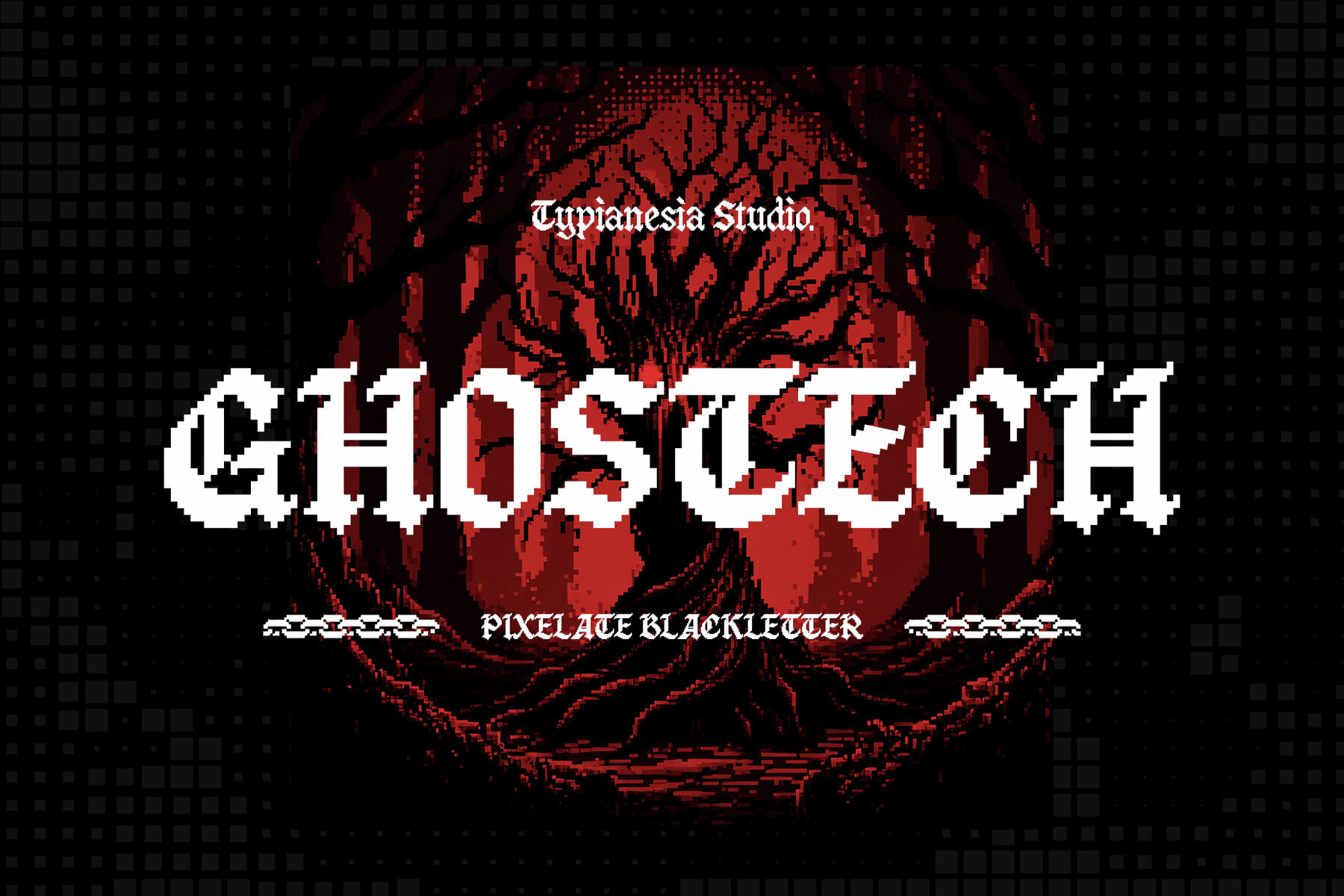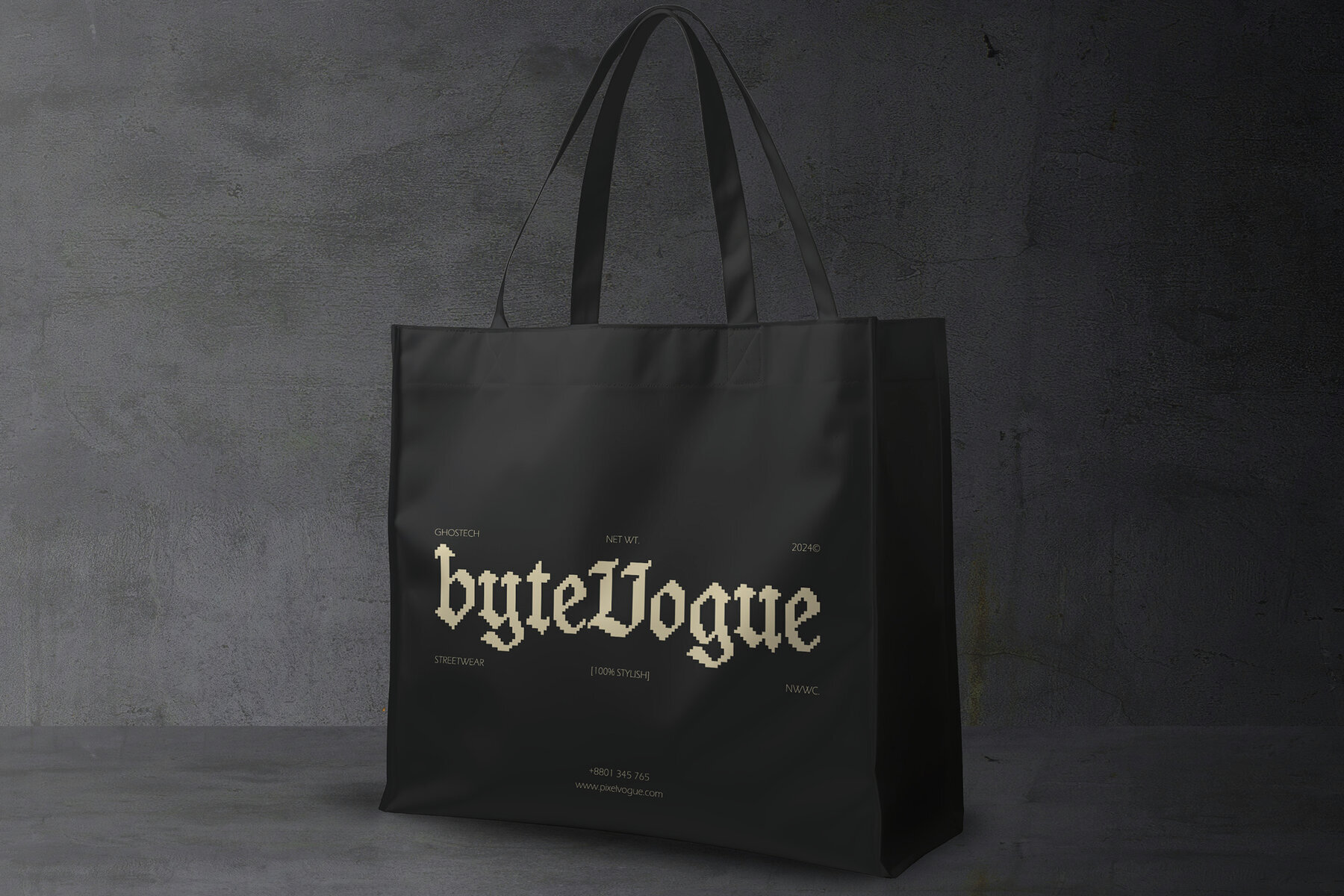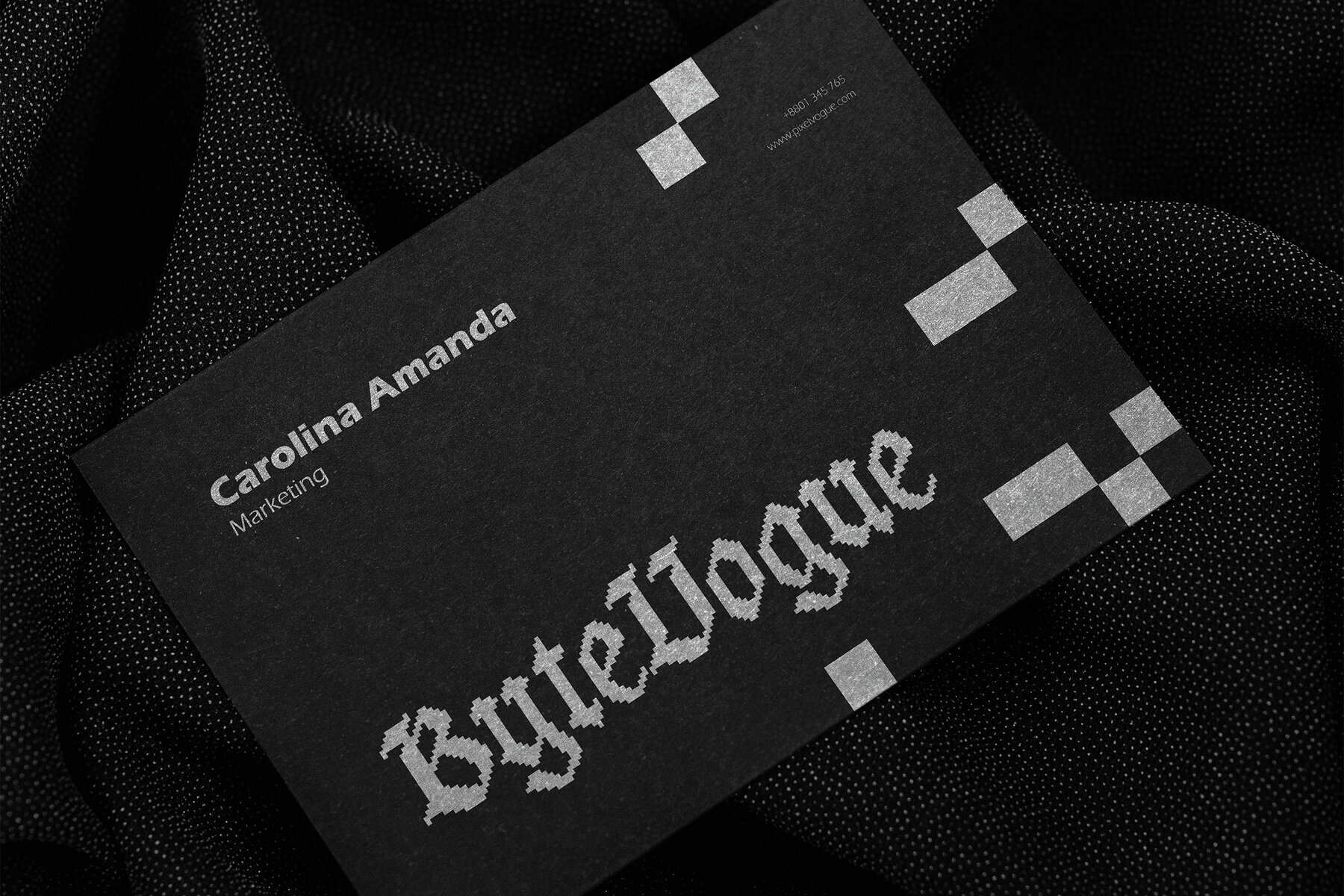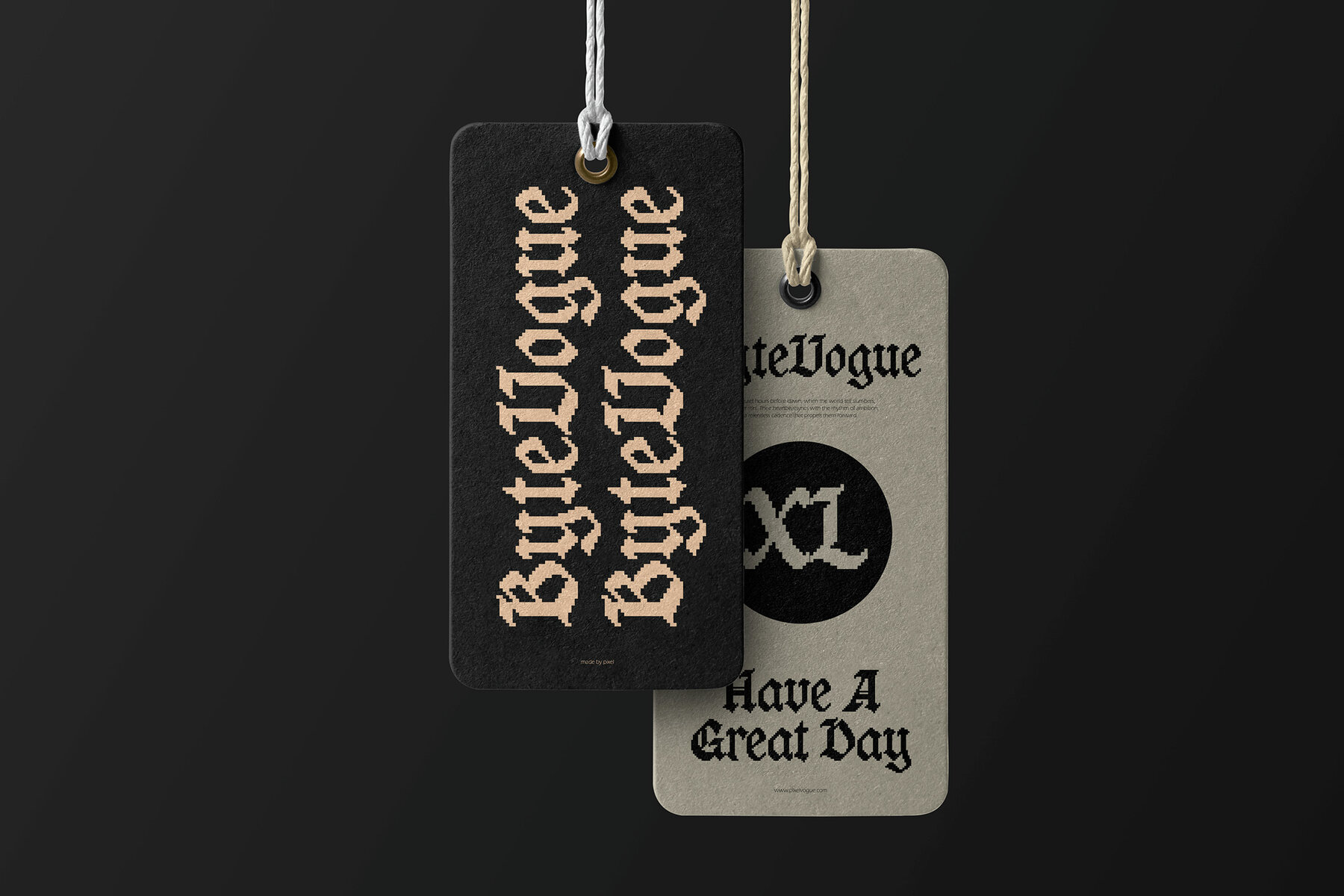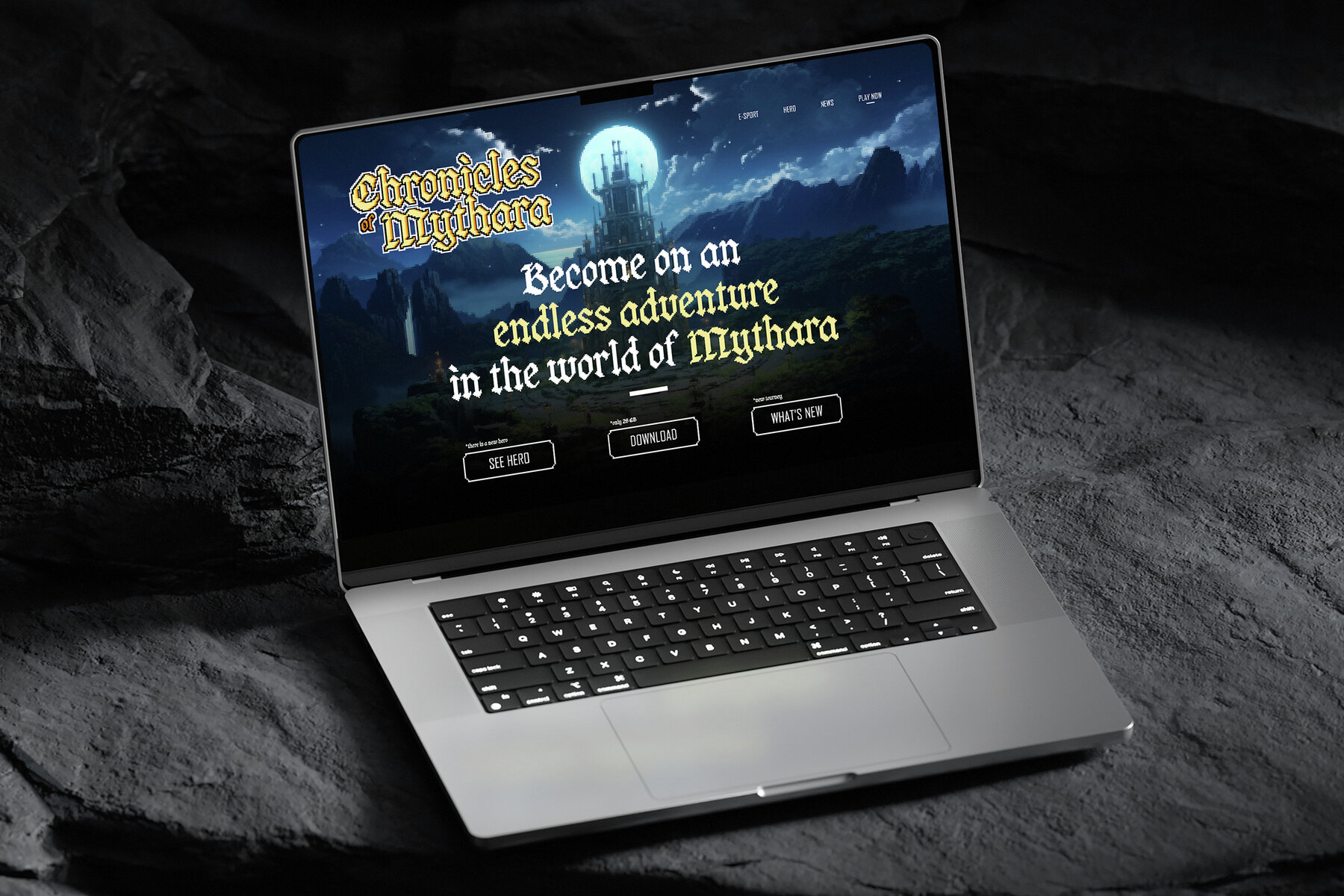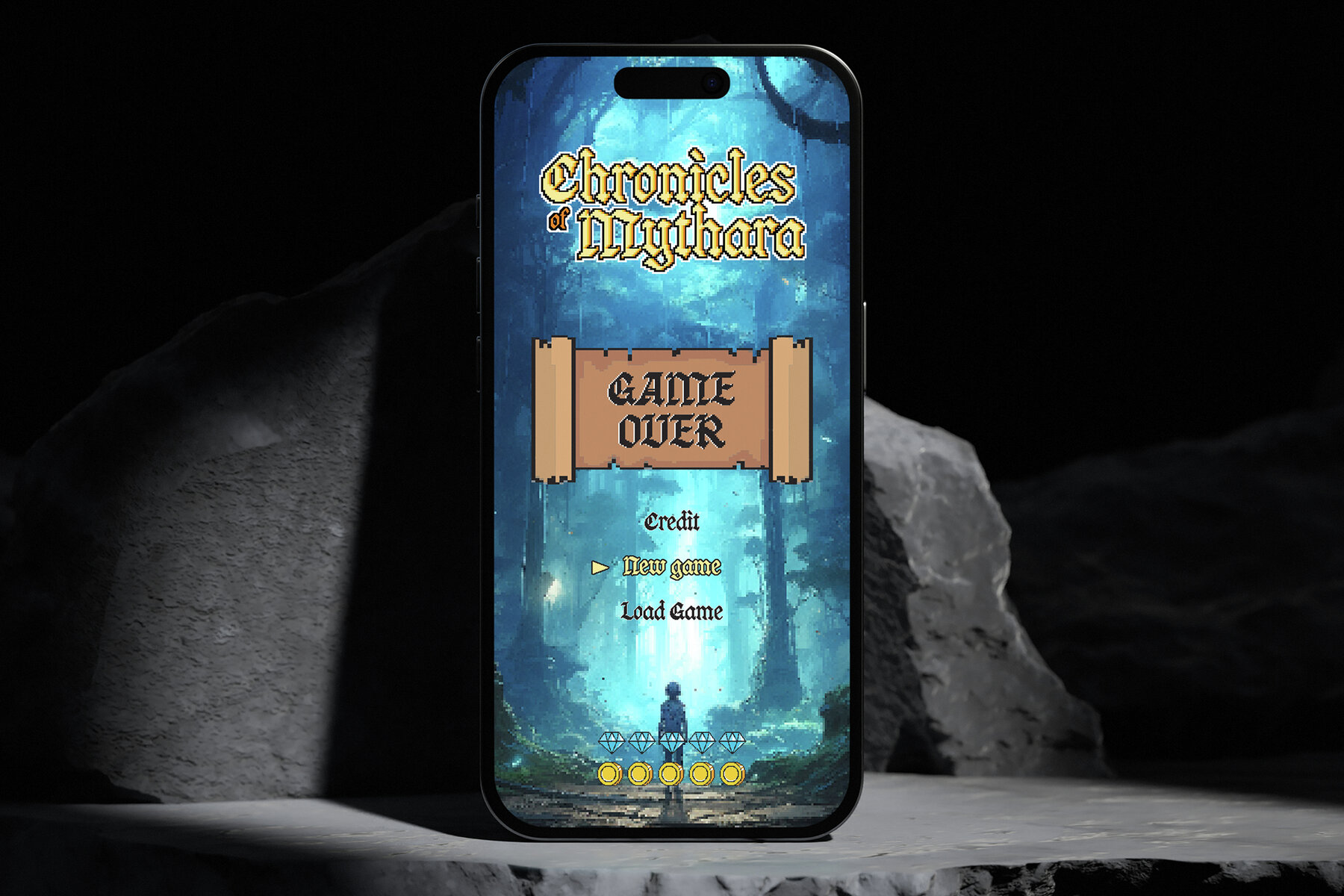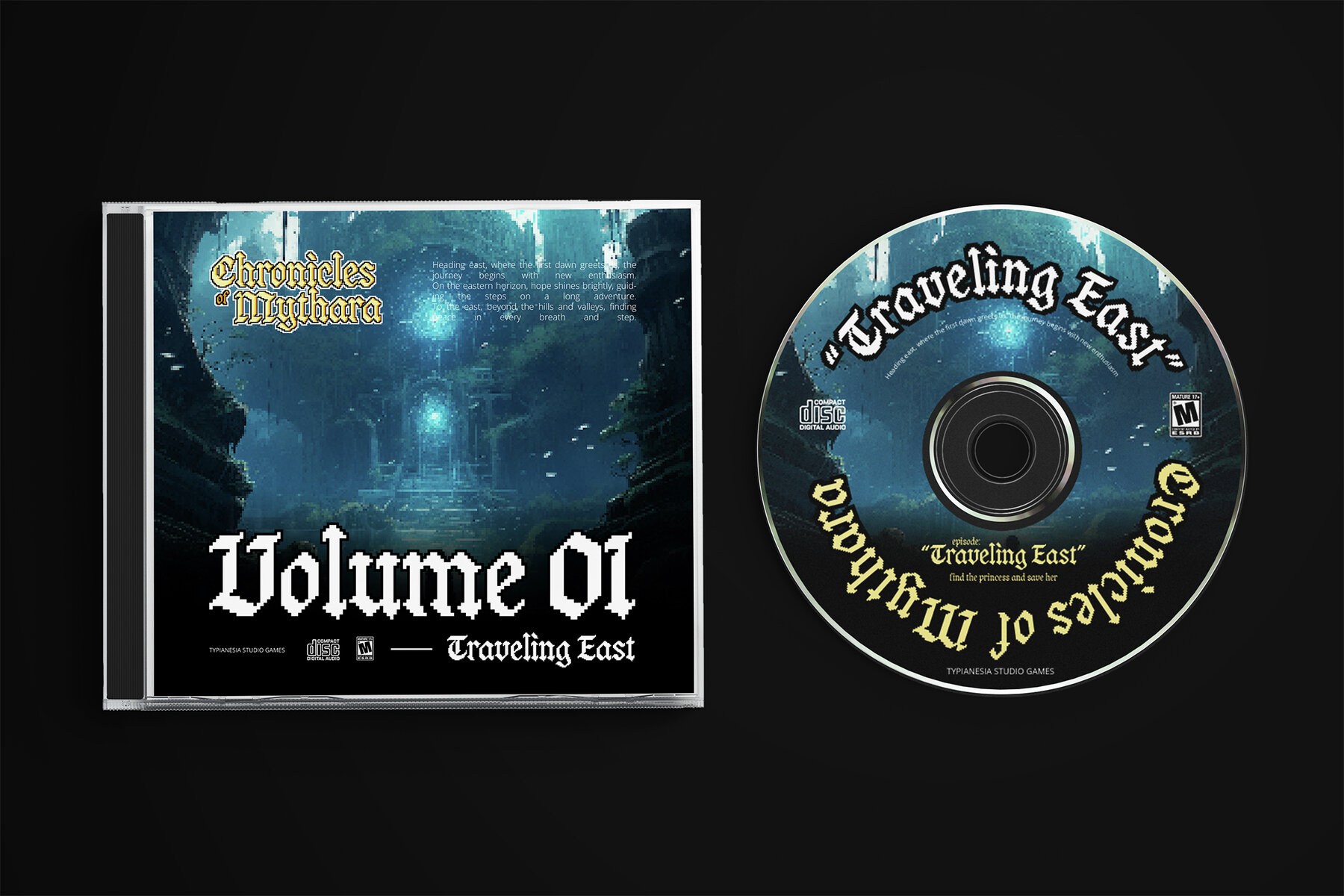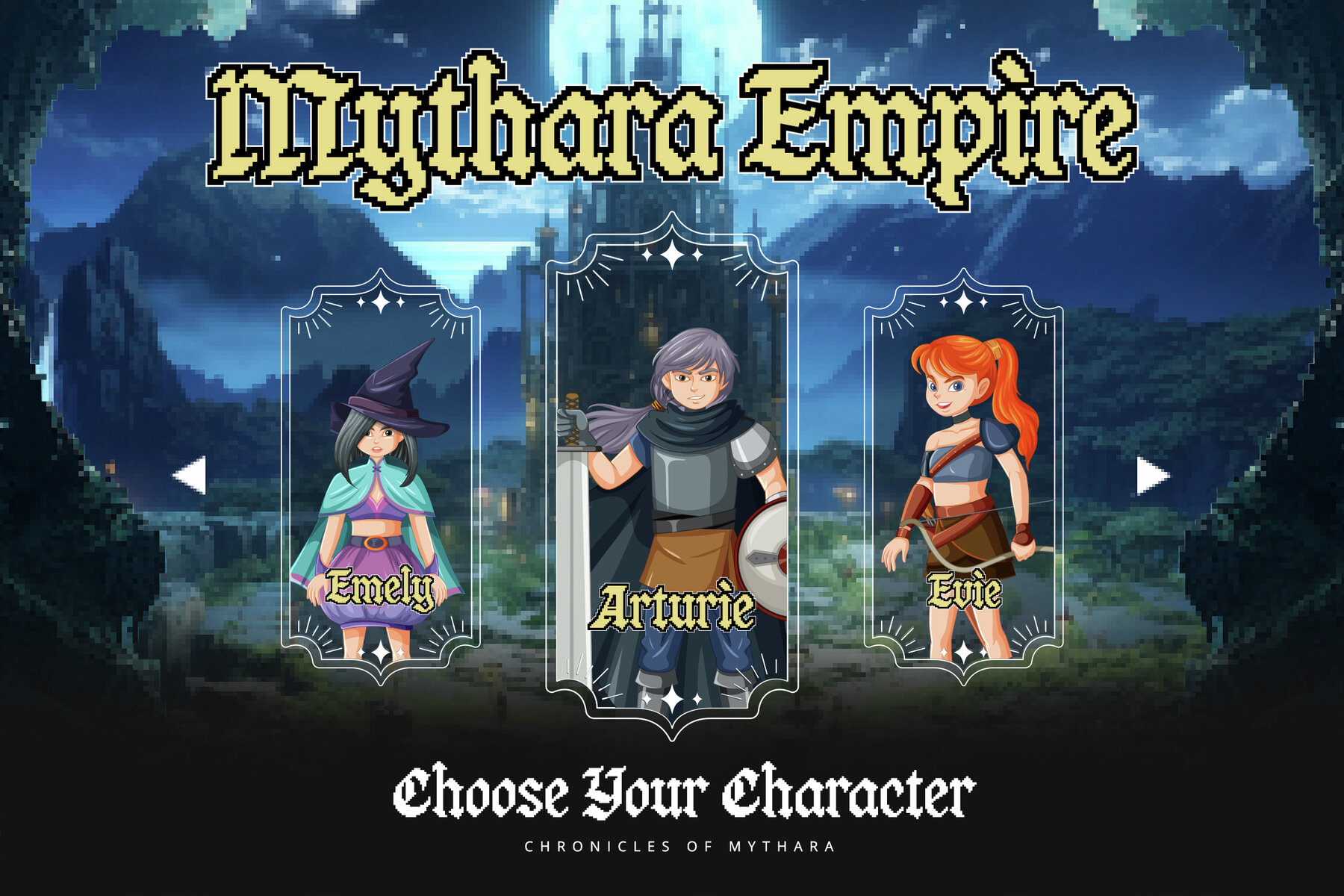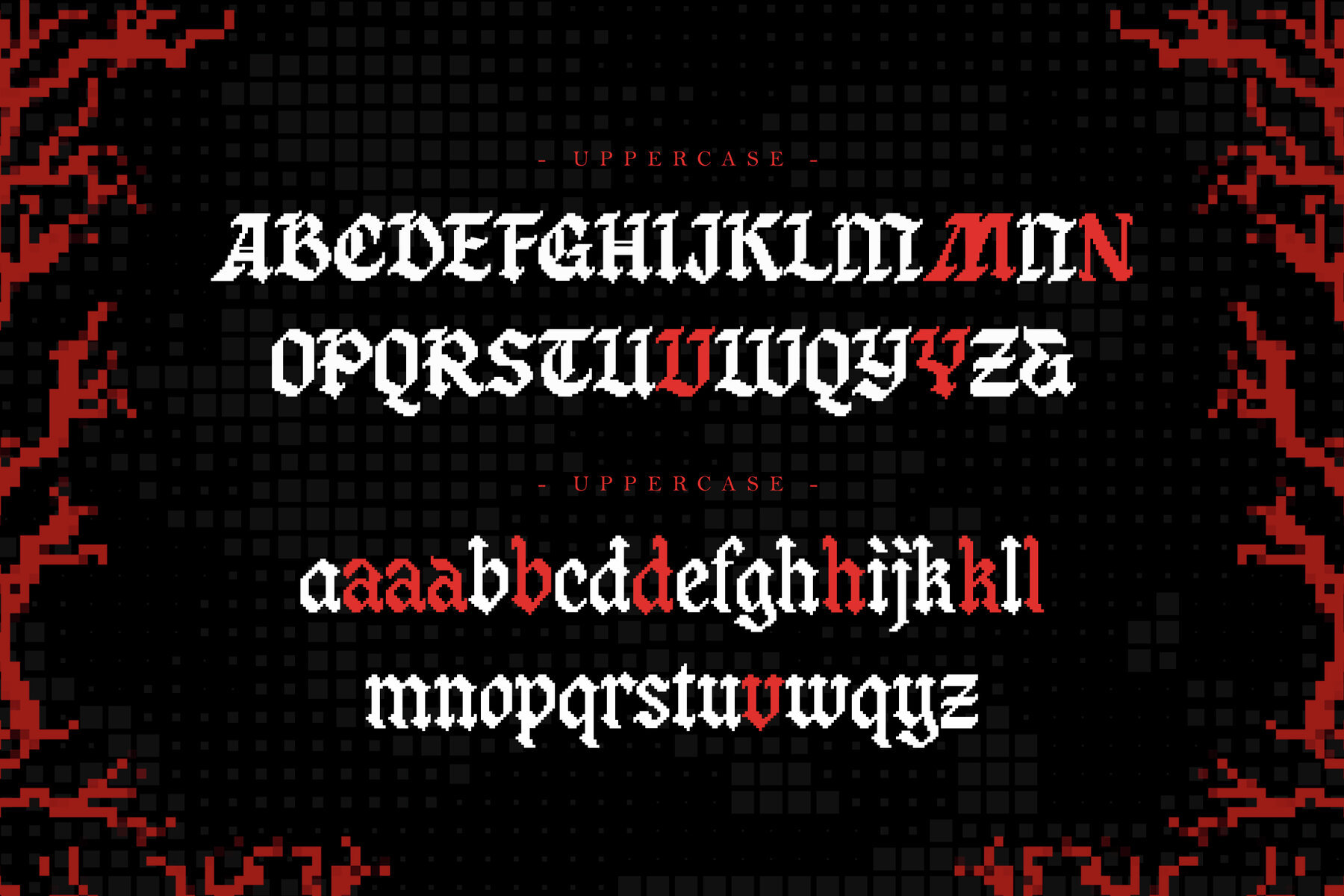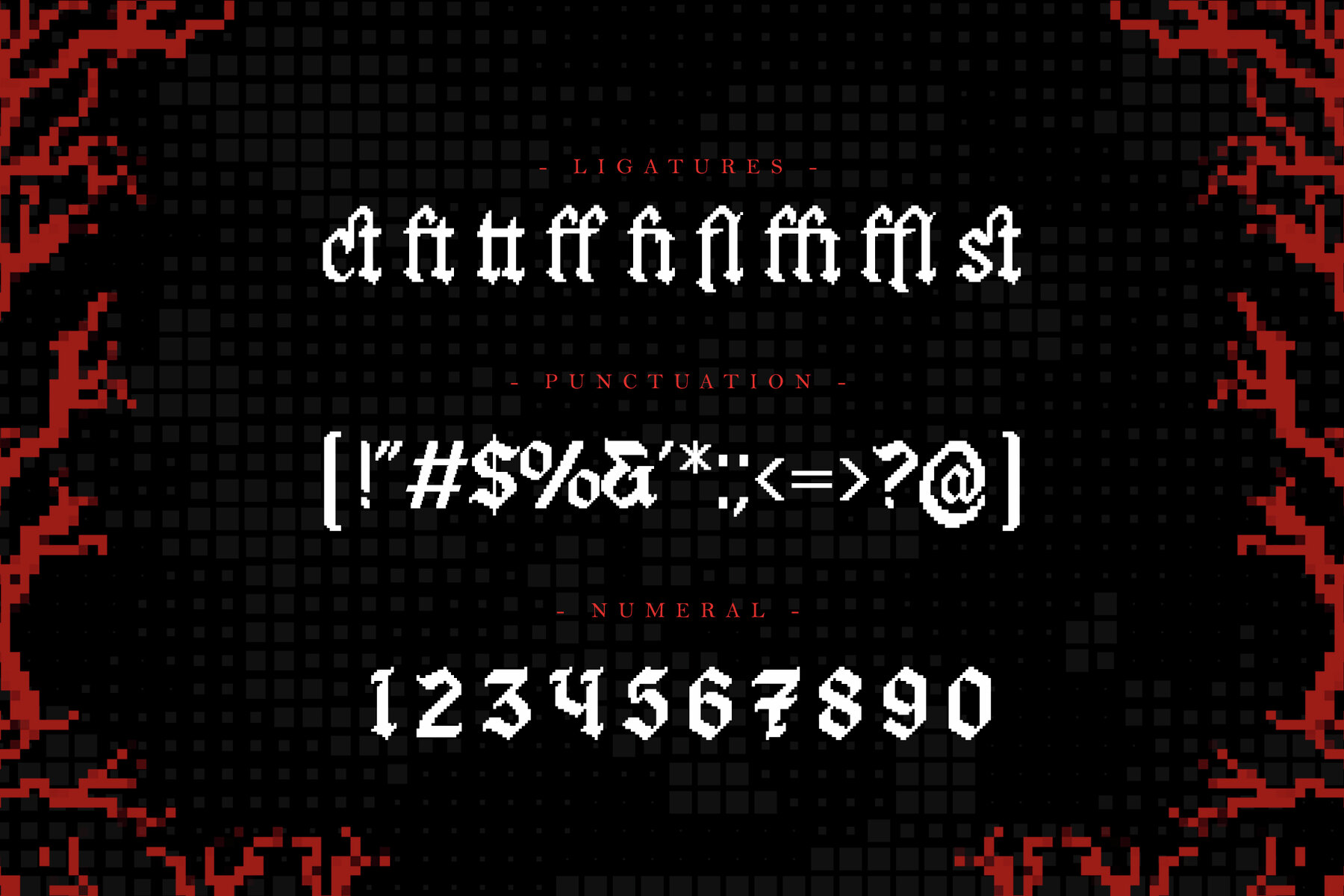
Ghostech Font
Ghostech Regular
Ghostech is a unique blend of classic blackletter and modern pixel aesthetics. This innovative typeface marries traditional blackletter elegance with a pixelated design, creating a distinct visual identity perfect for a variety of applications. Whether you're working on digital or print projects, branding, signage, or gaming design, Ghostech adds a nostalgic yet sophisticated touch to your work.
Providing comprehensive support for uppercase and lowercase letters, punctuation marks, numerals, and multilingual characters, Ghostech ensures versatility and usability. The inclusion of ligatures and alternates further enhances its flexibility, offering greater creative expression. Crafted with meticulous attention to detail, Ghostech’s intricate pixelation and bold blackletter strokes exemplify the seamless integration of two diverse typographic styles.